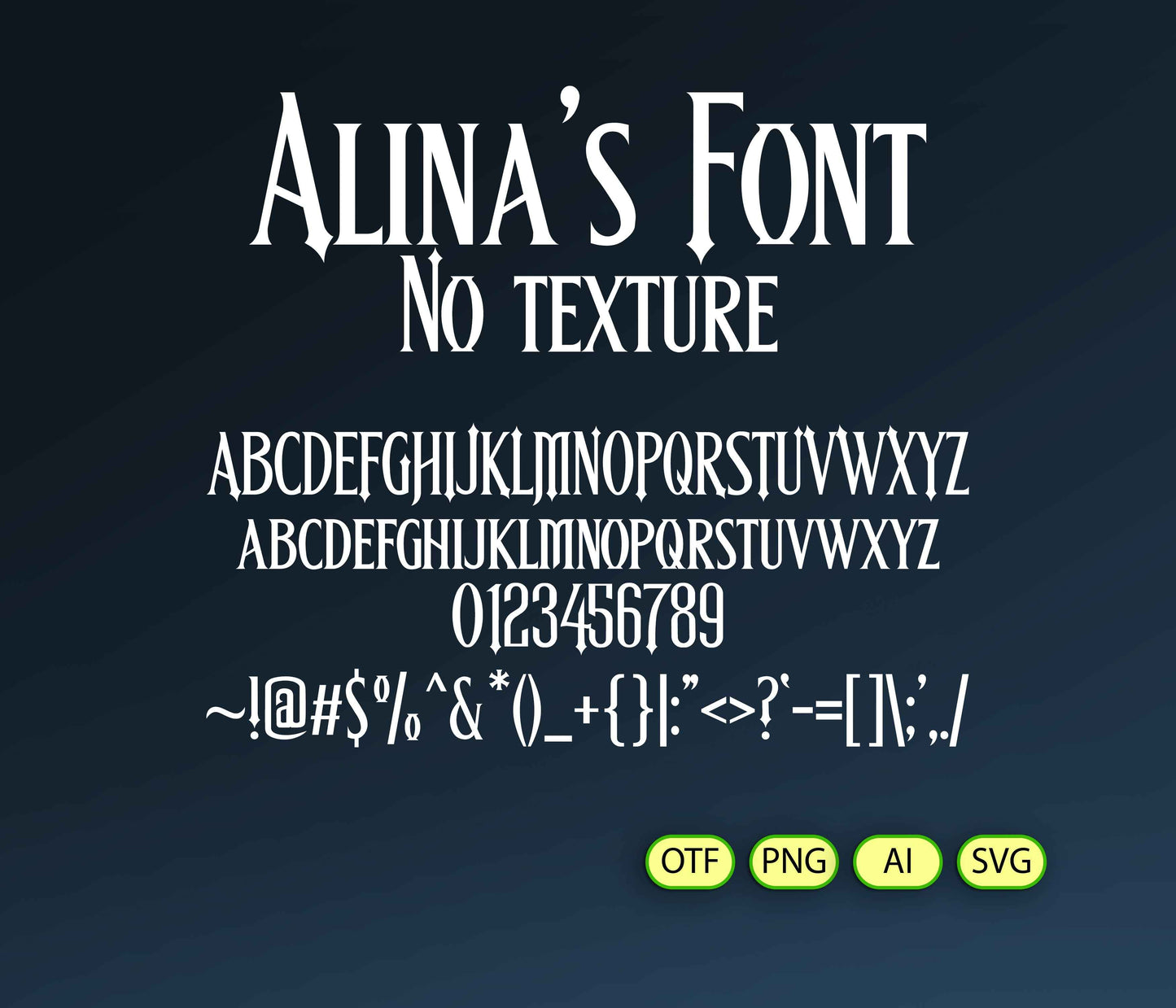
Ghostly Manor Font
Invoke Gothic Elegance with the Ghostly Manor Font
Step into a world of eerie elegance and supernatural charm with our Ghostly Manor-inspired font. Perfect for fans of classic haunted themes and designers looking to add a touch of gothic sophistication to their projects, this font captures the mysterious and haunting essence of a legendary haunted attraction. Whether you're creating spooky event invitations, designing themed merchandise, or crafting digital content, our font ensures your projects resonate with the ghostly allure and timeless style of the Ghostly Manor.
Our Ghostly Manor-inspired font features ornate, Victorian-style lettering with intricate details that echo the architecture and atmosphere of iconic haunted attractions. This font is versatile enough for a wide range of applications:
- Event Invitations: Perfect for Halloween parties, mystery dinners, or haunted house events.
- Themed Merchandise: Design t-shirts, posters, and accessories that capture the gothic beauty of the Ghostly Manor.
- Digital Media: Enhance websites, blogs, and social media content with captivating headers and graphics.
- Personal Projects: Add a spooky touch to scrapbooking, DIY crafts, or home decor.
- Promotional Materials: Create eye-catching flyers, brochures, and banners for themed events or attractions.
Our Ghostly Manor font not only pays tribute to the eerie charm of classic haunted themes but also empowers you to infuse your designs with a sense of gothic elegance and supernatural mystery. Whether you’re crafting promotional materials, designing unique merchandise, or adding a haunted touch to personal projects, this font allows you to communicate with the timeless and enchanting spirit of the Ghostly Manor. Ready to bring a touch of the macabre to your creative endeavors? This font is your key to unlocking a world of gothic sophistication and spectral beauty.